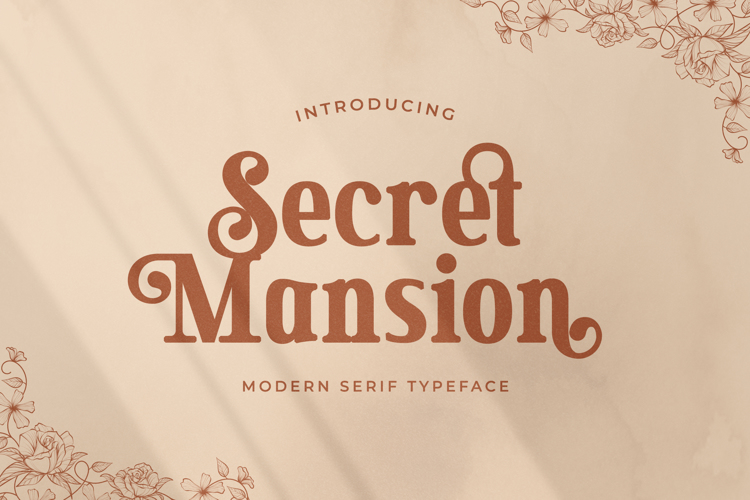
Secret Mansion Font
About Secret Mansion Font
Secret Mansion is an elegant serif that blends traditional influences into a contemporary aesthetic. Elegantly crafted and easily be matched to an incredibly large set of projects. Use Secret Mansion to achieve an exquisite, yet subtle look and maximum versatility.